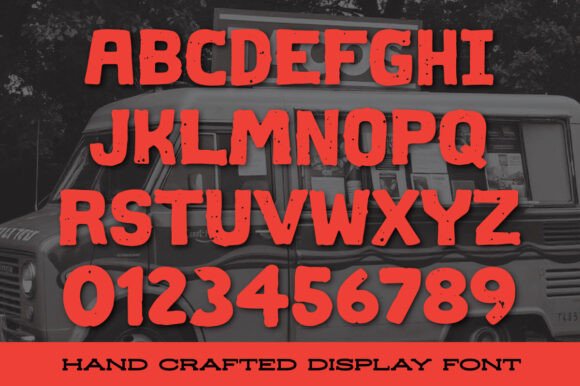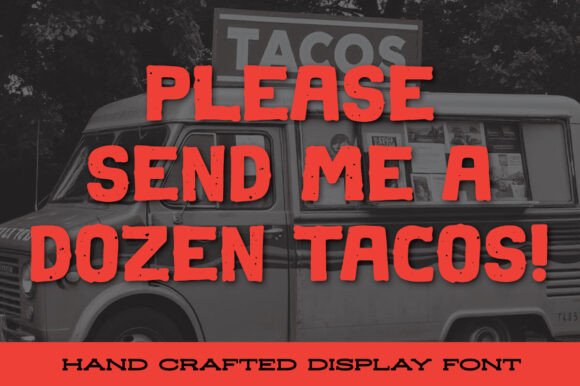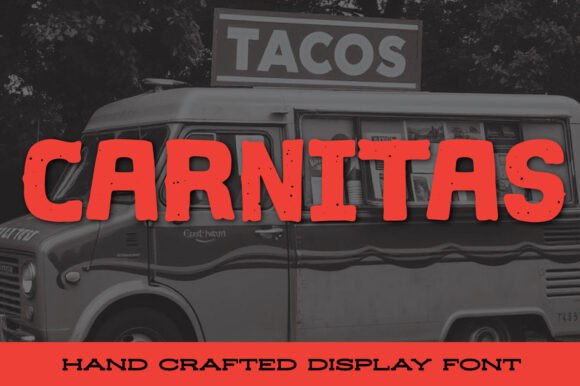
The Ultimate Font for Foodies and Design Enthusiasts: Carnitas Font
I’ll never forget the time I was working on a branding project for a local taco truck. I had the colors, the logo, and the overall aesthetic nailed down, but something was missing. As I scrolled through font after font, I just couldn’t find the right fit. That was until I stumbled upon Carnitas, a bold, hand-drawn font with a distressed, rustic charm that perfectly captured the vibrant energy of a bustling street market.
An Honest Review of Carnitas Font
So, what makes Carnitas so special? Let’s dive into the good stuff:
• ✨ Unique and eye-catching design: Carnitas has a one-of-a-kind, handcrafted style that adds a flavorful, down-to-earth vibe to any project.
• ✅ Perfect for food branding: Whether you’re designing a menu, poster, or social media graphics, Carnitas is ideal for capturing attention and celebrating bold creativity.
• ✅ Highly versatile: This font is not just limited to food branding; it’s also great for playful designs, craft projects, and more.
Of course, no font is perfect, and Carnitas has a few small quirks:
• ⚠️ Limited use in formal designs: Due to its distressed, rustic charm, Carnitas may not be the best fit for formal or professional projects.
• 🤔 Some letters may be tricky to read: As with any hand-drawn font, some letters may be a bit harder to read, especially at smaller sizes.
The Story Behind Carnitas Font
Carnitas was designed with the goal of capturing the vibrant energy of a bustling street market. The designer, inspired by the colorful sights and sounds of a taco truck, created a font that would evoke the same feelings of excitement and playfulness. With its distressed, rustic charm, Carnitas is the perfect font for anyone looking to add a little flavor to their designs.
What type of projects is Carnitas best suited for? Carnitas is perfect for food branding, menus, posters, and playful designs.
Does Carnitas support OpenType features? Yes, Carnitas supports OpenType features, including Stylistic Alternates and Glyphs.